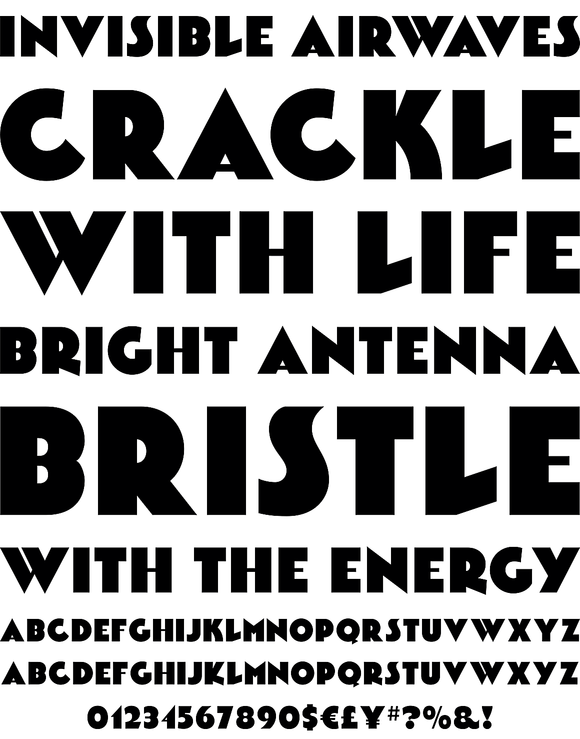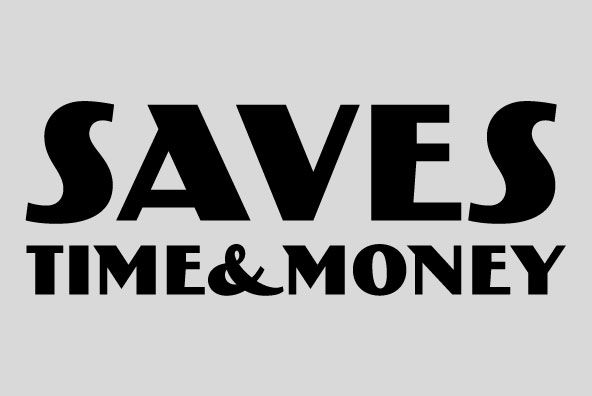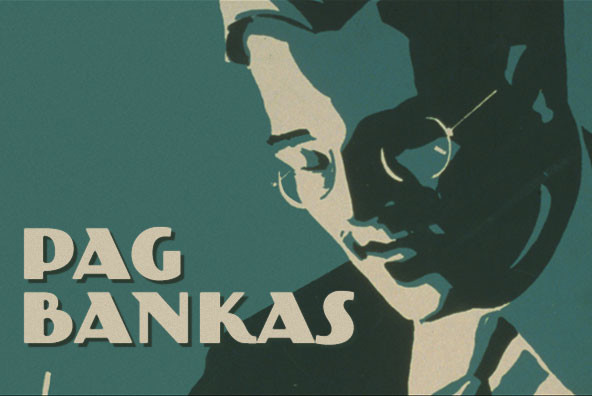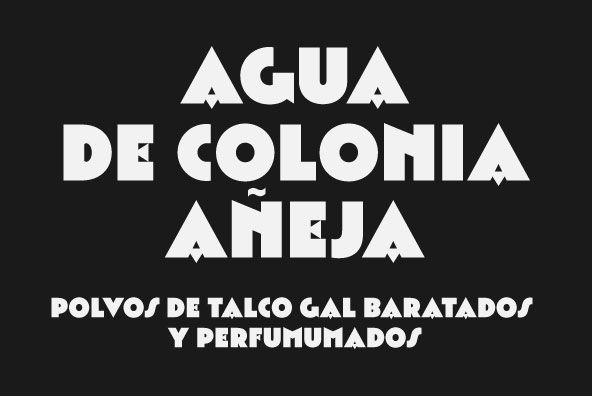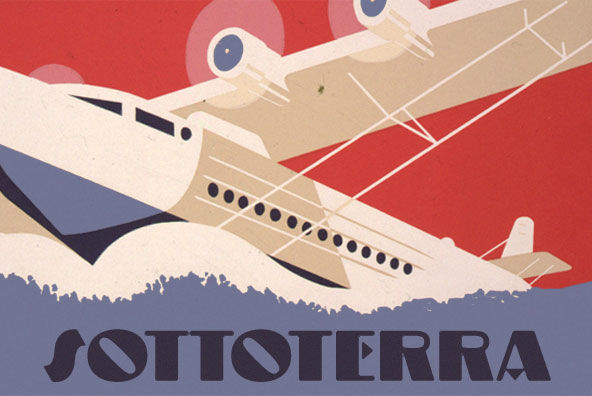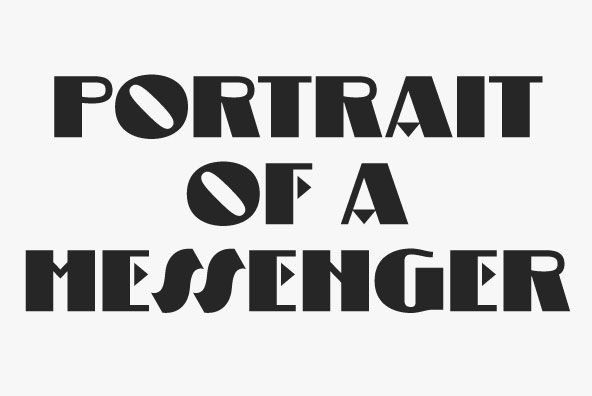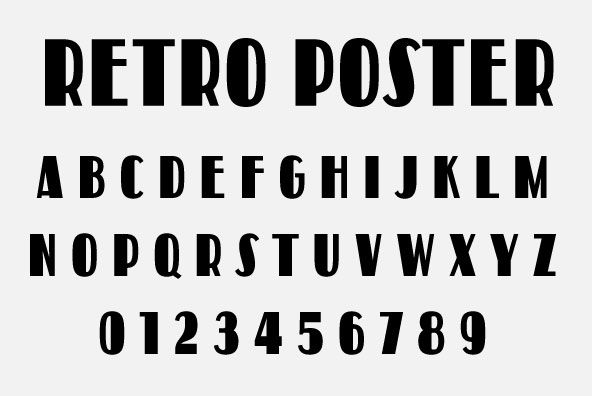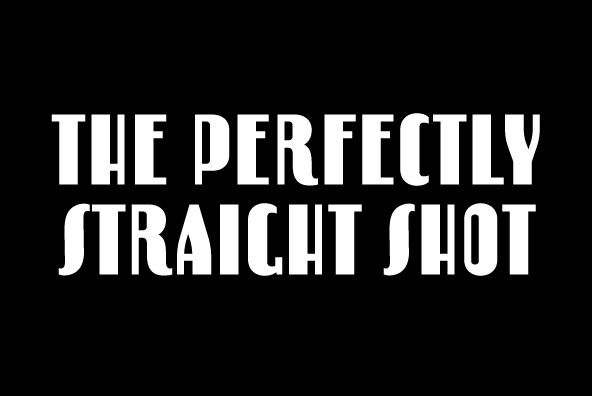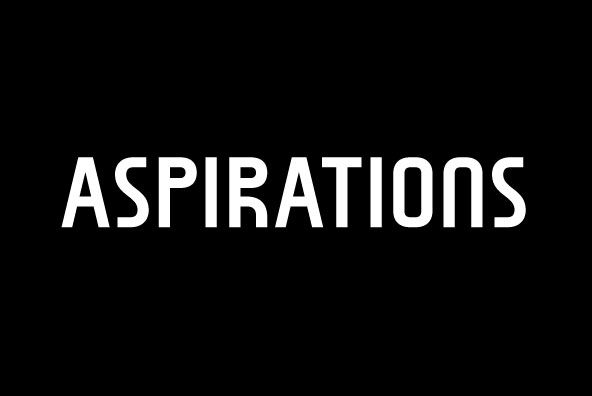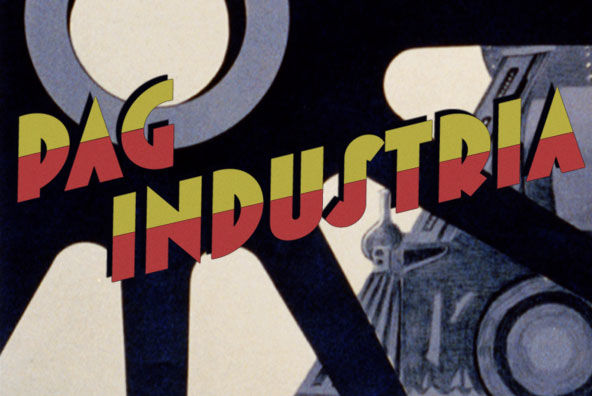
The PAG Collection is the first of its kind, containing 25 beautiful and diverse retro styled fonts by the Japanese font designer, Ryoichi Tsunekawa. The PAG fonts follow a common theme of type inspired from posters, propaganda and other various adv...
The PAG Collection is the first of its kind, containing 25 beautiful and diverse retro styled fonts by the Japanese font designer, Ryoichi Tsunekawa. Discounted at an astonishing 50% off the retail price, this collection is a must have for any serious graphic designer. The PAG fonts follow a common theme of type inspired from posters, propaganda and other various advertisements from the early 1900s.